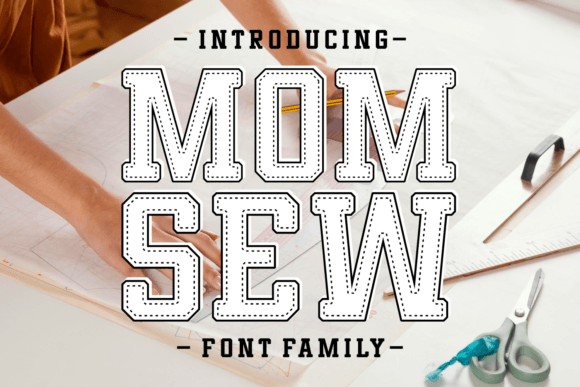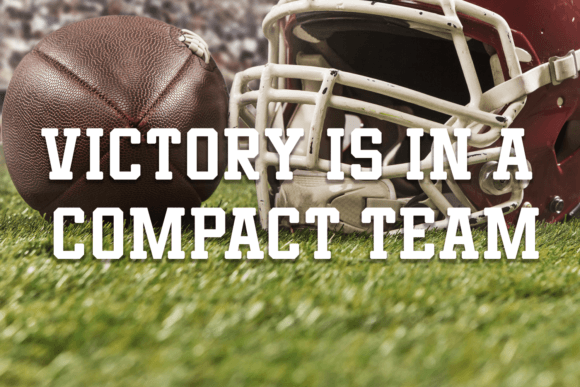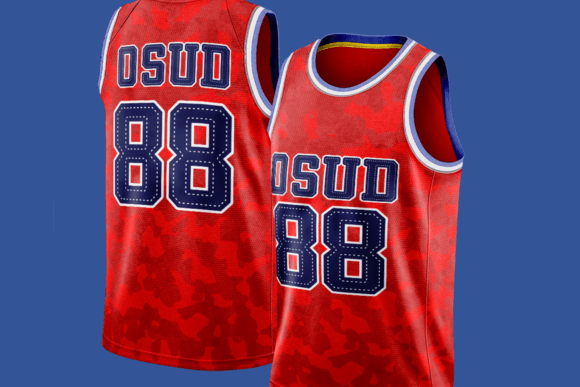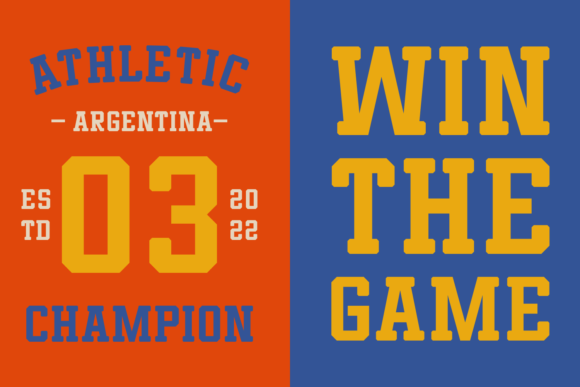
Mom Sew Font: A Bold Slab Serif for Cricut & Sporty Designs
About the Mom Sew Font
From logos to headlines, the Mom Sew Font is the perfect choice for making a lasting impression. Immerse yourself in this meticulously designed slab serif typeface. Resonating the charm of true authenticity, Mom Sew works flawlessly in many scenarios – be it branding, apparel, book covers, or web design. With its clean lines and aesthetically pleasing roundness, this font adds a touch of elegance to any project.
Mom Sew’s strong yet friendly slab serif forms excel in headlines, short text blocks, and logos, lending a touch of vintage charm to branding projects for artisanal goods, boutiques, or cafes. Its slightly rounded serifs prevent it from feeling overly harsh, making it suitable for packaging design where readability at smaller sizes is crucial. However, its weight and strong character make it less ideal for body text or UI elements requiring high legibility at smaller sizes or for extended reading.
Pairing Mom Sew with a clean sans-serif like Open Sans for body copy provides a balanced contrast, while a script font like Great Vibes adds a touch of playful sophistication. For a more modern feel, consider pairing it with a geometric sans-serif like Montserrat.
Overall, Mom Sew projects a friendly yet sophisticated personality, ideal for brands seeking a balance between vintage appeal and modern clarity.
Mom Sew Font Usage Examples
Mom Sew Font Example